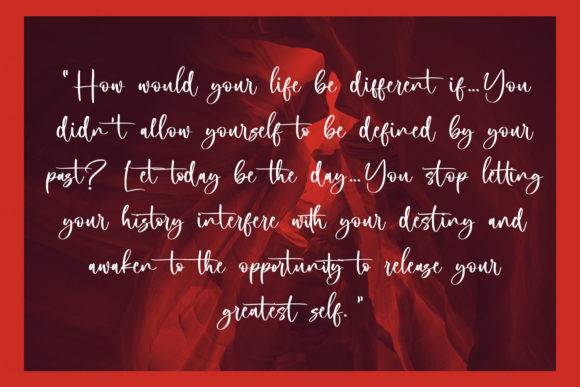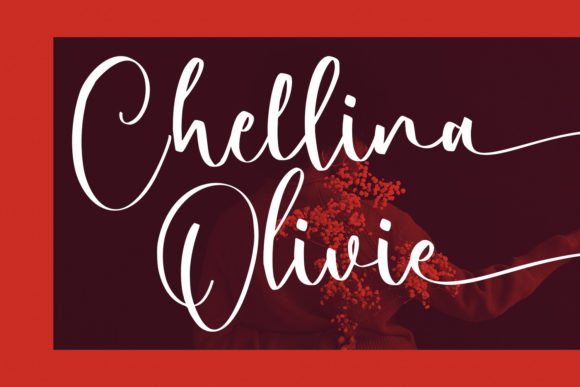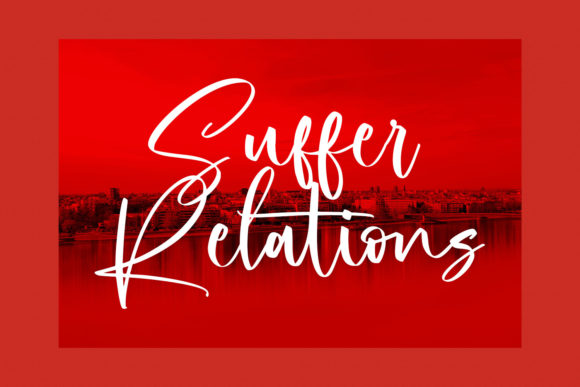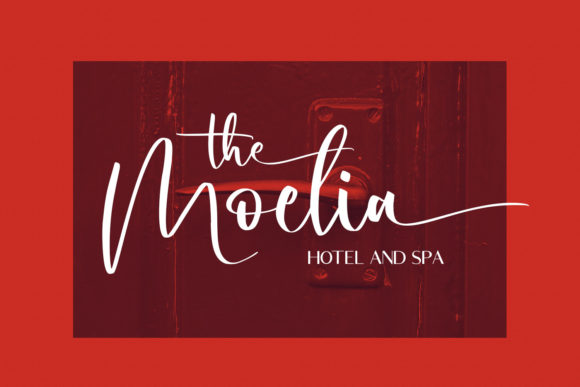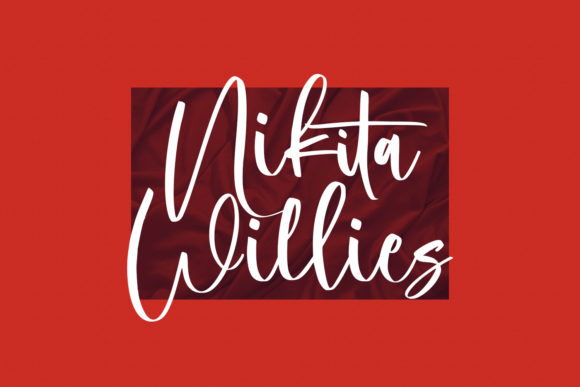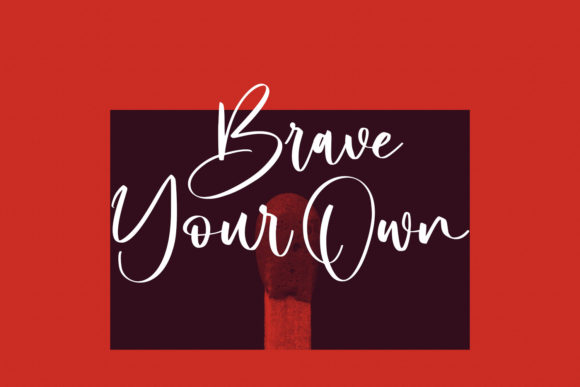
Introduction to Saintori Font
Saintori is a fancy script font.
It features medium contrast strokes, fun characters, ligatures and alternates No matter the topic, this font will be an incredible asset to your fontsโ library, as it has the potential to elevate any creation.